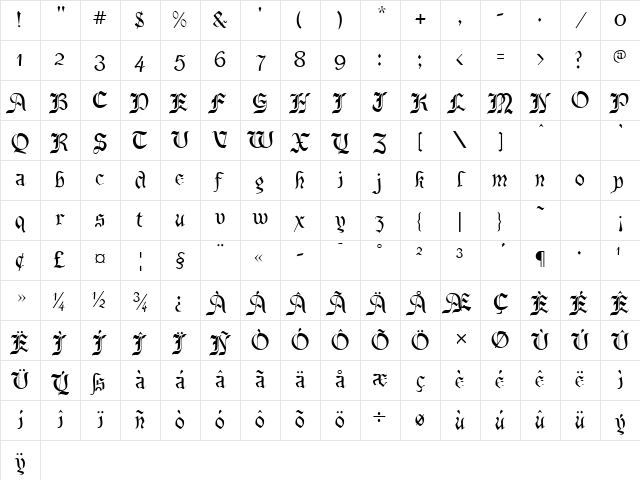
BeneCryptine Regular
Design Context for BeneCryptine
BeneCryptine is a composed and adaptable typeface that performs quietly and consistently across a wide range of design contexts.